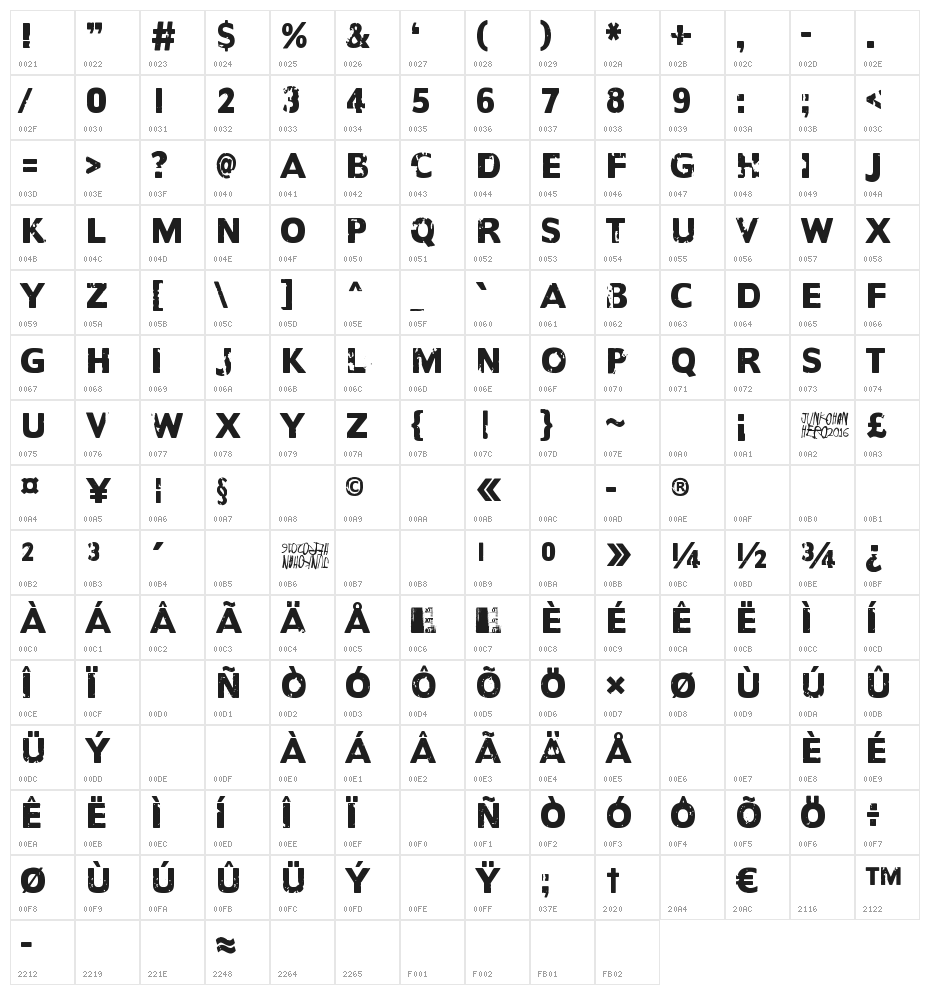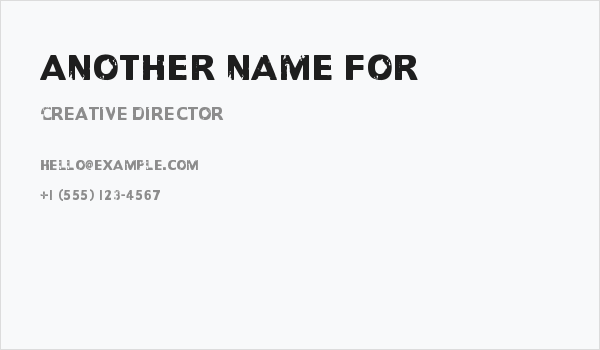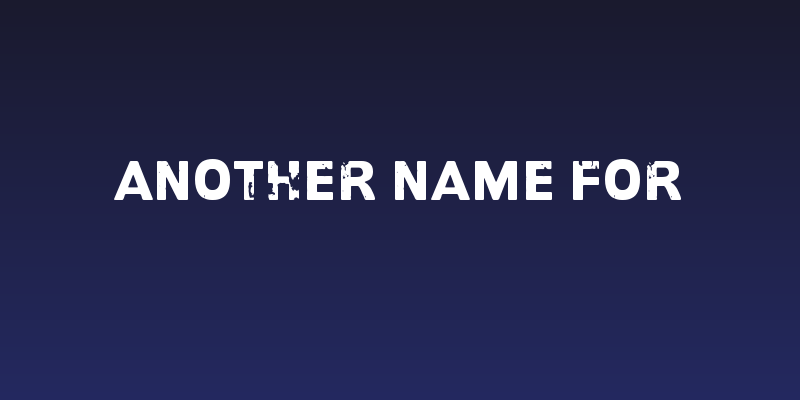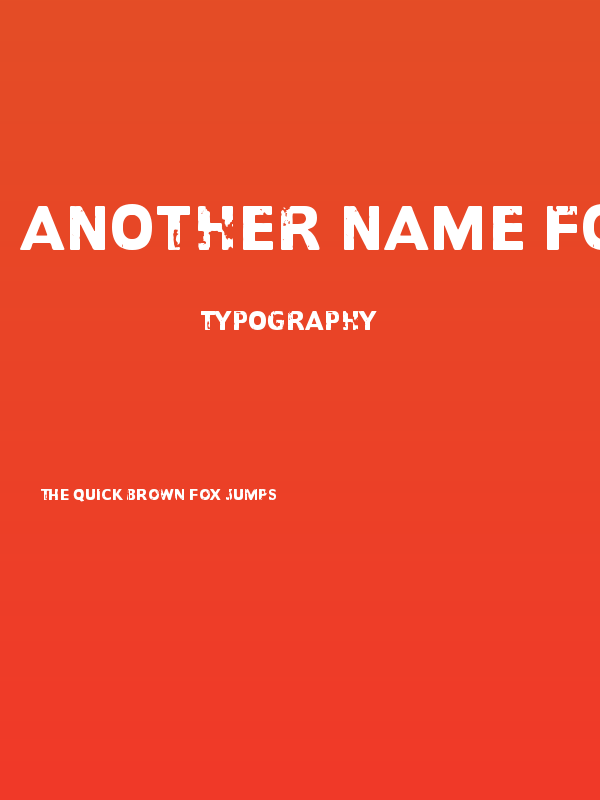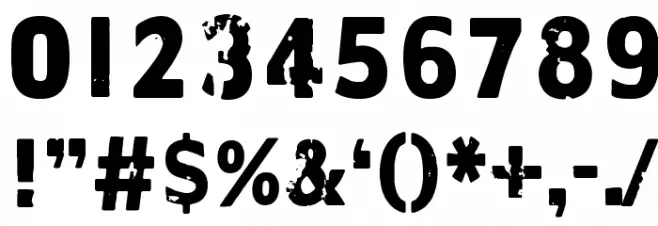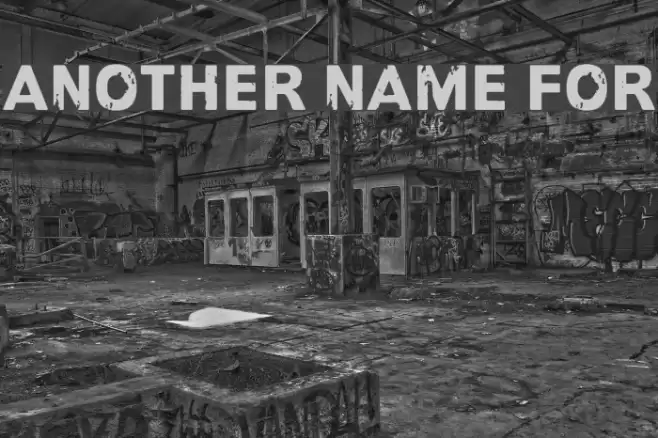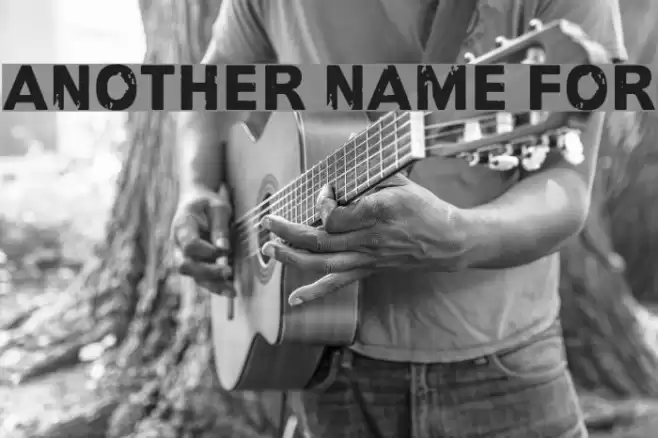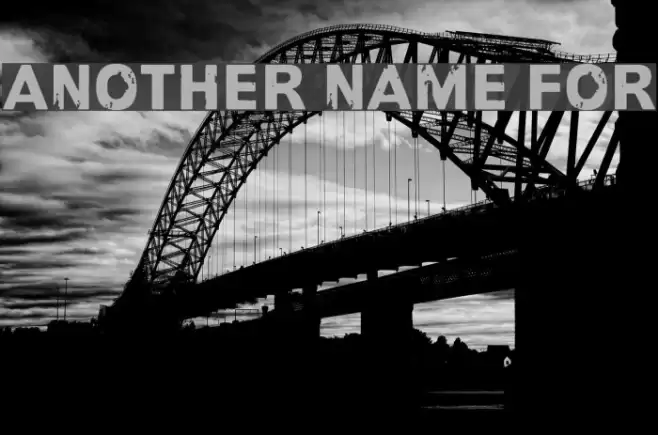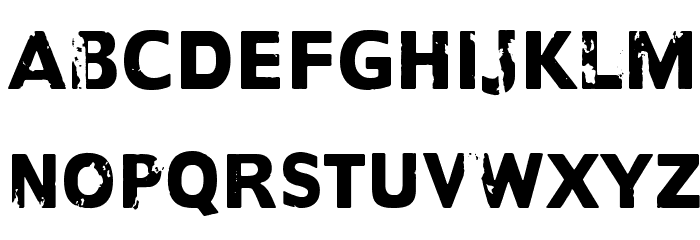
Another name for Font
Another name for Description
This font features a bold, distressed style with a grunge texture that gives it a rugged, worn appearance. The uppercase and lowercase letters, along with numbers and special characters, are designed with a consistent, heavy weight that emphasizes their boldness. The texture appears as random, rough patches that create a sense of age and weathering, making it ideal for projects that require a vintage or industrial aesthetic. The characters are evenly spaced, maintaining readability despite the distressed effect. This font is particularly suitable for designs that aim to convey a sense of toughness or authenticity.
| Overall Style | Vintage |
| Proposed Projects | Perfect for posters, album covers, branding for rugged products, or any project needing a vintage or industrial feel. |